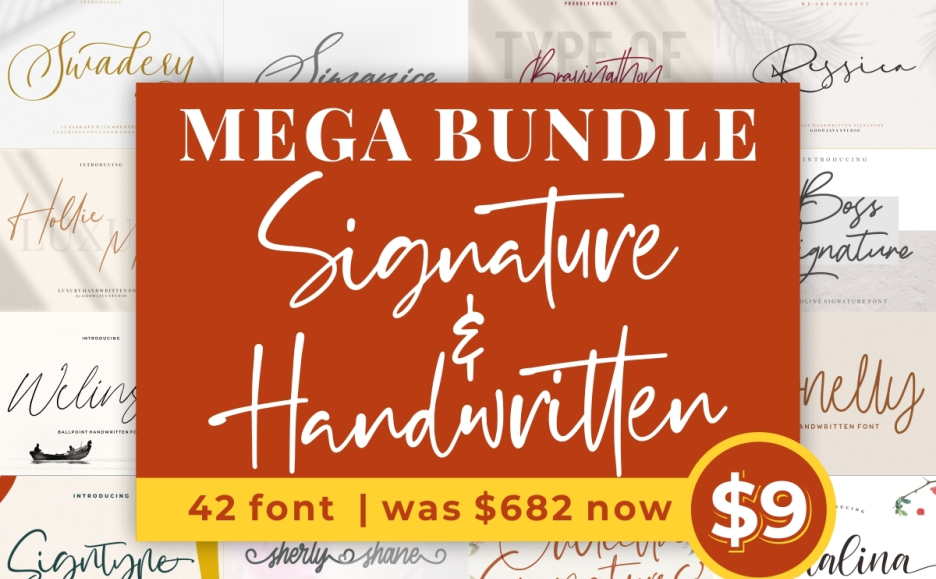
Mega Script & Handwritten Fonts Bundle
Elevate your design projects with the Mega Script & Handwritten Fonts Bundle. This collection features a variety of beautifully crafted script and handwritten fonts, perfect for adding a personal touch to your branding, logos, and marketing materials.
• Includes multiple font styles: elegant scripts, casual handwritten designs, and more.
• Variety of weights and styles to suit different design needs.
• Easy to customize for unique branding.
• Designed for versatility in both print and digital applications.
• Ideal for invitations, greeting cards, and social media graphics.
• Combine different styles for a unique look.